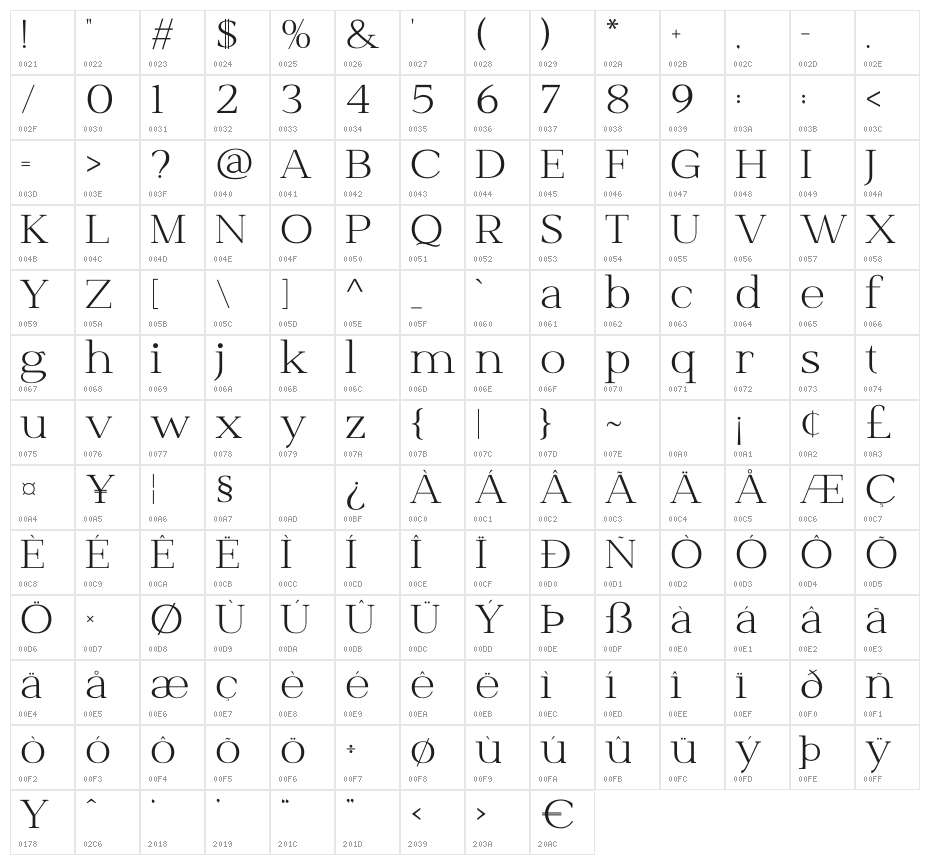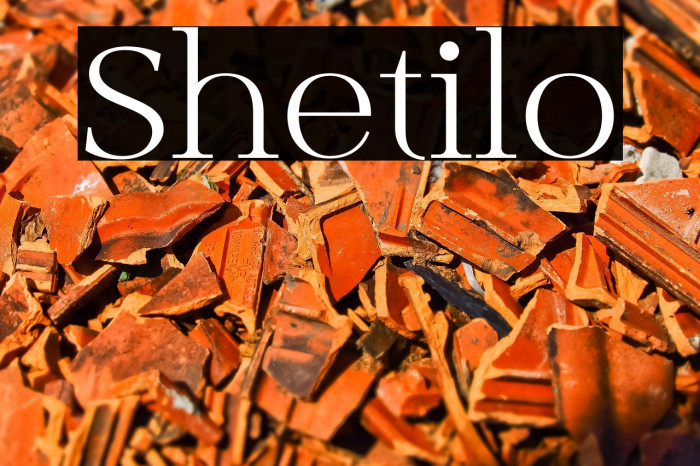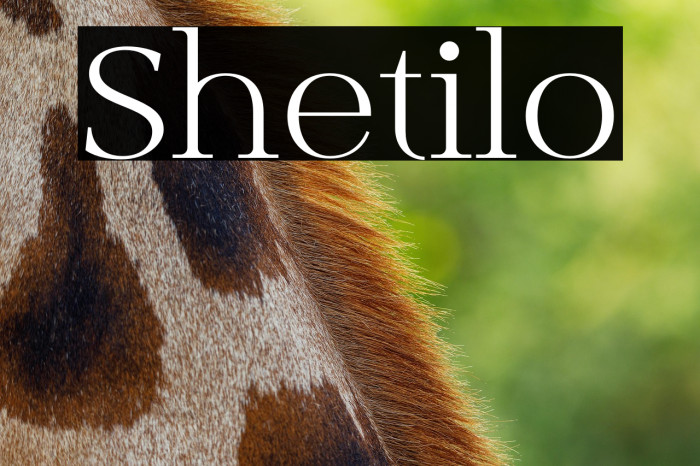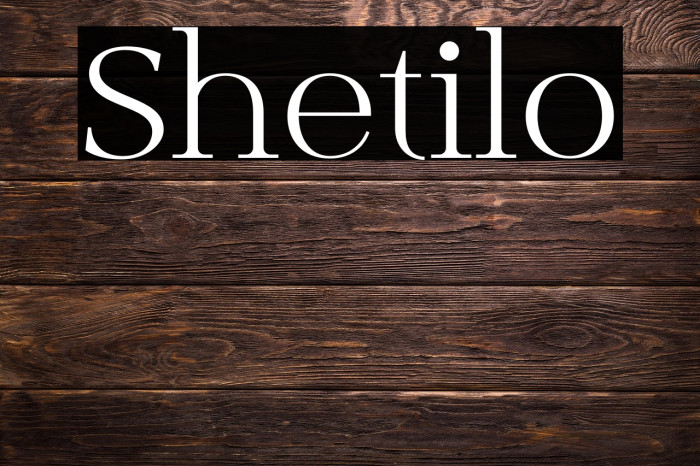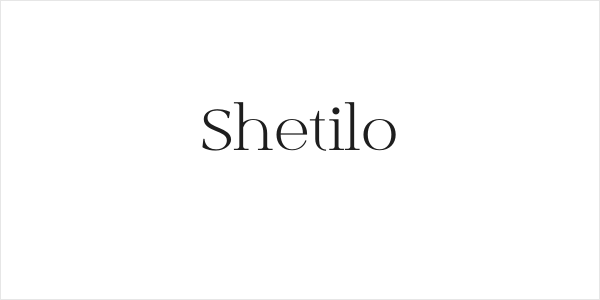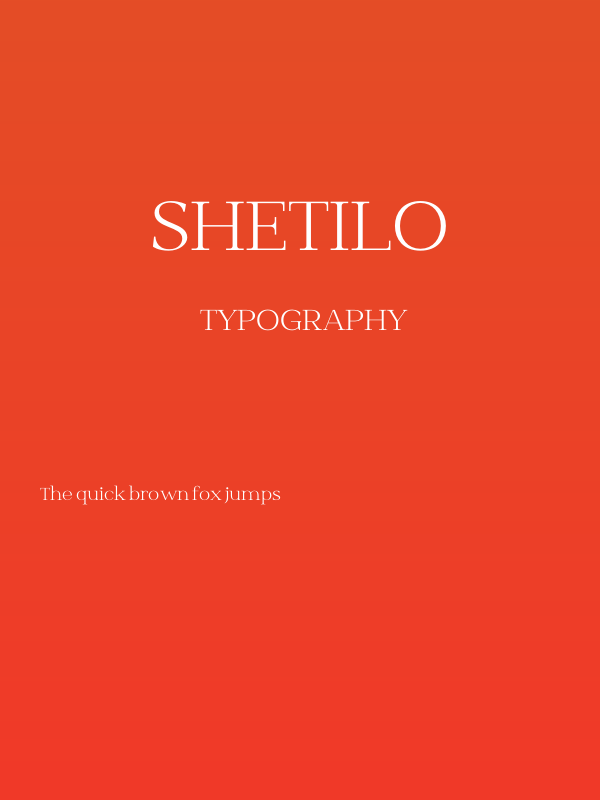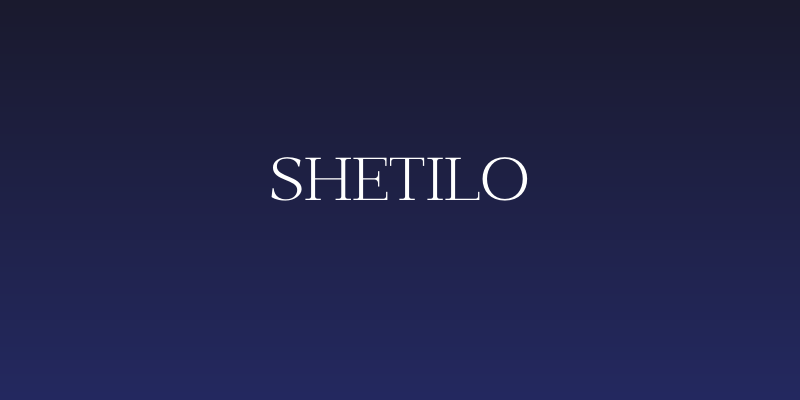
Shetilo Font
Shetilo Description
This font exudes a classic elegance with its refined serif style. The characters are well-proportioned, featuring thin, graceful serifs that add a touch of sophistication. The uppercase letters are stately and commanding, while the lowercase letters maintain a harmonious balance with their slightly rounded forms. The numerals are clear and distinct, ensuring readability. Special characters are crafted with precision, maintaining the overall aesthetic of the font. This typeface is ideal for projects that require a timeless and professional appearance.
| Proposed Projects | Ideal for editorial design, book covers, formal invitations, and branding that requires a classic touch. |